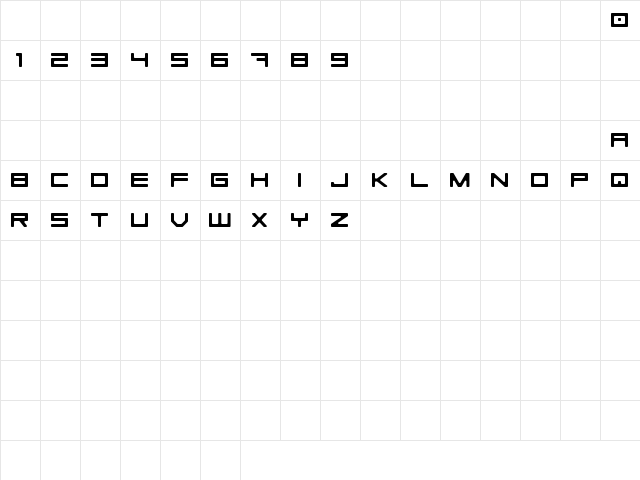
Complete Basica Future glyph index. Displaying only characters natively supported by Basica Future font.
Basica has a distinctly futuristic character, with geometric precision and clean angles that feel at home in technology, gaming, and sci-fi contexts.
Pro Tip: Try Basica with generous letter-spacing in UI labels and navigation - the geometric forms benefit from room to breathe.